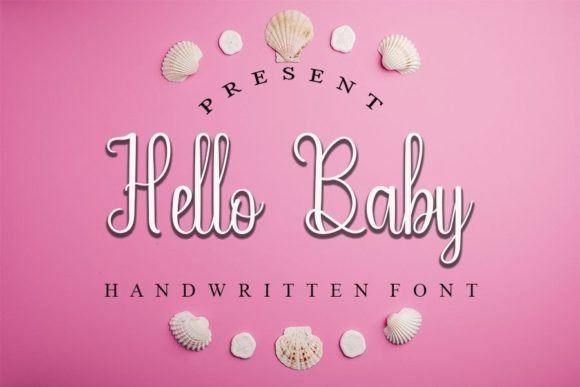
Immerse yourself in the captivating world of HelloBaby, a script font that epitomizes elegance and charm. ONE DESIGN, the creative force behind this masterpiece, has meticulously crafted each letterform to exude a sense of joy and romance. Whether you're a seasoned designer or just starting your creative journey, HelloBaby is the perfect companion to bring your visions to life.
With its slender strokes and delicate details, HelloBaby dances across the page like a graceful ballerina. Its playful personality shines through in every curve and flourish, making it an ideal choice for adding a touch of whimsy to your projects. Picture your words taking on a new life as they're adorned with the beauty of HelloBaby.
Step into a world where creativity knows no bounds. HelloBaby empowers you to craft exquisite wedding invitations that will leave a lasting impression on your guests. Enchanting cards and heartfelt letters will come alive with its romantic aura. Unleash your imagination and explore the endless possibilities that await you with HelloBaby as your creative partner.
Don't settle for ordinary fonts that fade into the background. Choose HelloBaby and watch your designs transform into works of art. Its timeless charm transcends trends, ensuring that your creations will remain captivating for years to come. Join the ranks of discerning designers who recognize the power of HelloBaby to elevate their projects to new heights.